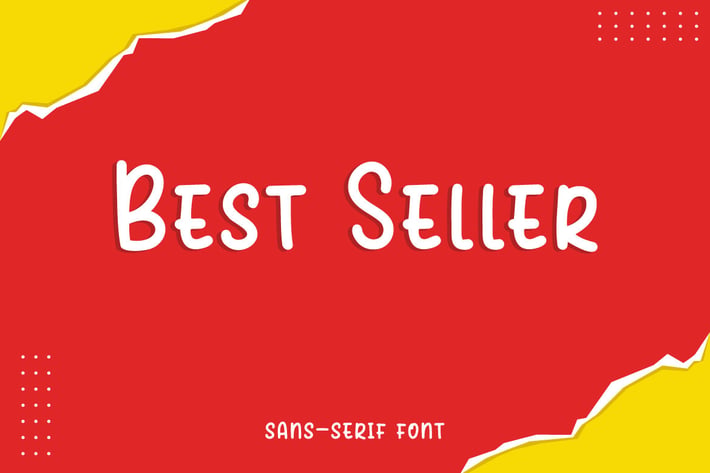
Best Seller - Clean Minimalist Sans-serif Font
Hello! BEST SELLER is a clean minimalist sans serif font
Best Seller can be used in any works such as children book, flyer, book title, advertisement, social media content, logo and many more.